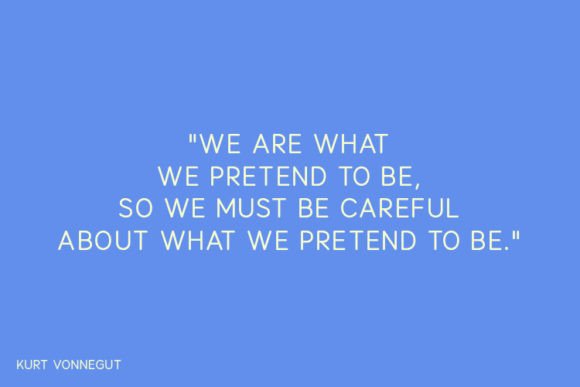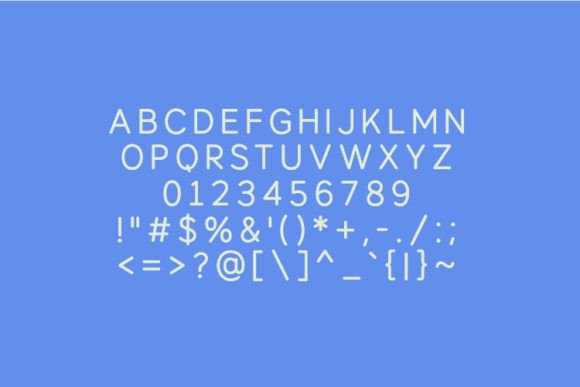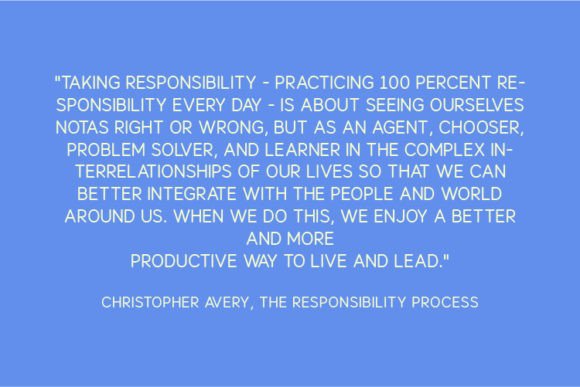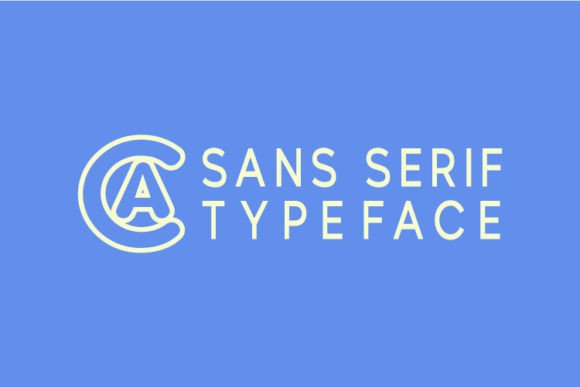
Bearline Font: Elevate Your Designs with Modern Elegance
In the world of typography, a well-crafted font can make all the difference in elevating your design from ordinary to extraordinary. Introducing Bearline Font, a modern, classy sans serif typeface that is poised to become your go-to choice for a wide range of design projects. With its clean lines, versatility, and extensive character set, Bearline Font is perfect for designers and crafters looking to add a touch of sophistication to their work.
What is Bearline Font?
Bearline Font is a sans serif typeface that boasts a sleek and contemporary aesthetic. Its design is characterized by simplicity, elegance, and a dash of modernity, making it an excellent choice for projects that demand a high level of professionalism. The font includes a comprehensive set of characters, featuring upper case letters, numbers 0-9, and a variety of punctuation marks and symbols. This extensive character set ensures that Bearline Font can be used for a multitude of applications, from logos and branding to weddings, invitations, quotes, advertisements, and more.
Key Features of Bearline Font
• Modern Sans Serif Design: Bearline Font sports a clean, sans serif design that exudes modernity and class. Its sleek lines and curves make it perfect for designs that require a contemporary look.
• Extensive Character Set: The font includes upper case letters, numbers 0-9, and a range of punctuation marks and symbols, ensuring versatility across various design projects.
• High Versatility: Whether you’re working on logos, wedding invitations, quotes, advertisements, or print materials, Bearline Font adapts seamlessly to any design need.
• Perfect for Professional and Personal Projects: Its professional look makes it suitable for business and advertising materials, while its elegant appearance is also perfect for personal projects like wedding invitations and event branding.
Use Cases for Bearline Font
Bearline Font’s versatility is one of its standout features, making it suitable for a wide array of design applications. Here are some of the best use cases for Bearline Font:
• Logos and Branding: Create a lasting impression with a modern and classy logo that stands out. Bearline Font’s unique style can help establish a strong brand identity.
• Weddings and Invitations: Add an elegant touch to your wedding invitations, save-the-date cards, and other event-related materials with Bearline Font’s sophisticated look.
• Quotes and Typography: Use Bearline Font to highlight inspirational quotes, phrases, or statements in your designs, adding a touch of modern elegance.
• Advertisements and Marketing Materials: Elevate your ads, flyers, brochures, and other marketing materials with a font that captures attention and communicates professionalism.
• Print and Magazines: Whether you’re designing for print or digital magazines, Bearline Font’s readability and aesthetic appeal make it an excellent choice.
Why Choose Bearline Font?
In a sea of fonts, Bearline stands out for its unique blend of modernity, elegance, and versatility. Here are a few reasons why Bearline Font should be your top pick:
• Unique Aesthetic: Bearline Font offers a fresh and distinctive look that can set your designs apart from the crowd.
• Time-Saving: With its extensive character set and versatility, Bearline Font can be used across multiple projects, saving you time and effort in searching for different fonts.
• Easy to Read: Despite its modern and sleek design, Bearline Font maintains excellent readability, making it suitable for both headings and body text.
Font Name Bearline Font
Author A Christie
Bearline Font is a powerful tool for designers and crafters looking to infuse their projects with a modern, classy vibe. Its clean sans serif design, extensive character set, and high versatility make it an excellent choice for a wide range of applications. Whether you’re working on professional projects or personal endeavors, Bearline Font can help elevate your designs to new heights. With Bearline Font, you can create stunning logos, elegant wedding invitations, captivating advertisements, and more, all while maintaining a consistent and sophisticated visual identity.